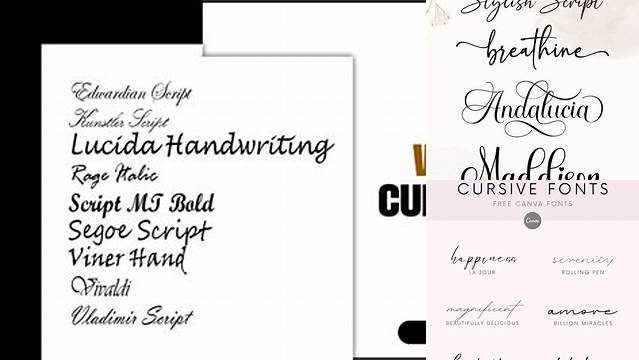
Top Cursive Fonts For Windows: Styles & Installation
Hey there, font fanatics! Ever wonder which cursive fonts would look absolutely amazing on your Windows setup? Well, you're in the right place! Finding the perfect cursive font can be a total game-changer for your documents, designs, and even just spicing up your everyday digital life. We're diving deep into the world of cursive fonts – think elegant scripts, stylish swirls, and everything in between – and how they play with your Windows system. Whether you're a creative pro or just someone who loves a good aesthetic, we've got you covered. Let's get started and discover some incredible cursive fonts that will make your Windows experience even more visually stunning.
Why Choose Cursive Fonts?
Alright, guys, let's talk about why you'd even want to use cursive fonts in the first place. Sure, you've got your trusty Times New Roman and Arial, but cursive fonts bring a whole different vibe to the table. They're all about adding a touch of personality, sophistication, and even a little bit of flair. First off, they can seriously elevate the aesthetic of your documents. Imagine a wedding invitation written in a beautiful script – it's way more personal and elegant than plain text, right? Cursive fonts can transform something ordinary into something special, whether you're designing a logo, creating a signature, or just writing a heartfelt letter. Beyond the visual appeal, using cursive fonts can also set the mood. They can evoke feelings of nostalgia, romance, or even playfulness, depending on the font you choose. Think about the classic Coca-Cola logo or the signature of a famous artist – these fonts are instantly recognizable and associated with a certain brand or personality. Plus, for some of us, using a cursive font can just be plain fun! It's like doodling with words, adding your own unique touch to everything you create. With so many styles to choose from, ranging from classic to modern, finding the perfect cursive font can be a fantastic way to express your individual style and make your work stand out from the crowd. Choosing the right cursive font is essential for making sure your message is clear and the overall design looks professional. So, whether you are creating a brand identity, designing invitations, or simply making your documents stand out, incorporating the right cursive font will help you accomplish your goals.
Elegance and Personality
One of the main reasons to choose cursive fonts is the instant touch of elegance and personality they bring. Let's face it: standard fonts are functional, but they often lack that certain je ne sais quoi. Cursive fonts, on the other hand, are all about flair and individuality. They can instantly elevate the look of your work, whether it's a simple email signature or a complex design project. Think of it like this: you wouldn't wear the same plain outfit to a formal event, would you? Similarly, using a cursive font can add a layer of sophistication and style that plain fonts just can't match. They make your work feel more handcrafted, more personal, and simply more visually appealing. This added elegance and personality make a big difference, especially when you are trying to create a memorable brand or make a great first impression. It shows that you care about the details and that you are willing to go the extra mile to make your work stand out.
Versatility in Design
Don't think that cursive fonts are just for invitations and fancy things. They're super versatile! You can use them in all sorts of design projects, from logos and branding to websites and social media graphics. The key is to find the right font for the job. Some cursive fonts are better for headings, while others work well for body text. You can even mix and match cursive fonts with other font styles to create interesting and unique combinations. For example, try pairing a bold, modern cursive font with a clean sans-serif font for a modern look, or combine a vintage cursive font with a serif font for a more classic vibe. The possibilities are endless! Plus, a well-chosen cursive font can add personality to any project. It allows you to inject your brand's personality into your designs and create a memorable visual identity. When used correctly, cursive fonts can create a perfect balance between elegance and readability, making your designs look professional and eye-catching. So don’t limit yourself to traditional uses. Get creative and experiment with different styles to find the perfect fit for your project.
Top Cursive Fonts for Windows
Okay, let's get to the good stuff: the best cursive fonts that play nicely with Windows. We've rounded up some of our favorites, considering both aesthetics and readability. Remember, the best font is the one that fits your project, so experiment and see what you like!
1. Great Vibes
Great Vibes is a fantastic choice if you are looking for something elegant, flowing, and easy to read. This font has a beautiful, classical style, and its delicate curves and connected letters make it perfect for invitations, quotes, and any design that needs a touch of sophistication. It is perfect for creating a feeling of elegance. It is also surprisingly readable, even at smaller sizes, making it versatile for different uses. Great Vibes is great for special occasions or whenever you want to bring a touch of class to your work. Its smooth lines and elegant curves capture a sense of luxury. This font's popularity is well-deserved, and it's definitely a must-try for any cursive font lover. Because it is simple and stylish, it is not only a font, but a way to make your projects stand out and have a lasting impact.
2. Dancing Script
Dancing Script is an excellent choice for anyone looking for a more casual, playful vibe. This font has a bouncy, energetic style that makes it perfect for greeting cards, social media posts, and any project where you want to add a touch of fun and friendliness. The letters appear to dance across the page, creating a lighthearted and approachable feel. Its informal style makes it a great choice for projects that need a more casual atmosphere. Dancing Script is perfect for projects that require a touch of whimsy. This versatile font is ideal for creative designs and personal projects. The fluidity of the font makes it easy to read, and the friendly design creates a good atmosphere. So whether you want to create a greeting card or add a touch of personality to your social media content, Dancing Script is an excellent choice. Its playful appearance makes it perfect for creative projects.
3. Brush Script MT
Brush Script MT is your go-to font if you want something that looks like it was made with a real brush. It has a slightly rough and imperfect look, giving it a more natural and handcrafted feel. This is a great option if you're going for a vintage or artistic style. It has a unique and charming look, making it an excellent choice for logos, headers, and other design elements that need to stand out. This font is great for designers looking for a touch of authenticity. This is ideal for designers looking to create a retro or handmade design. It brings a sense of authenticity to your designs. This bold and expressive font can add a special touch to your design. It can be perfect for your next artistic project. Its distinctive appearance captures attention and makes it a great choice for creative designs.
4. Pacifico
Pacifico is inspired by the surf culture of the 1950s. This font has a flowing, friendly style that's perfect for adding a touch of retro charm to your work. This font is great for those looking for a vintage or nostalgic aesthetic. It works great for websites, logos, and other projects that want to give off a cool, relaxed vibe. This font is also perfect for social media posts or any design that needs a touch of nostalgia. This font’s rounded letters and fluid strokes make it a great option for all types of creative projects. The unique character of this font will definitely grab your readers' attention. If you want to evoke feelings of relaxation and nostalgia, Pacifico is an excellent choice. Its retro appeal and its great versatility are some of the main features.
5. Lobster
Lobster is a bold, eye-catching font that's perfect for headlines and titles. This font has a vintage, retro feel with a slightly condensed design, making it perfect for grabbing attention. This font is great for adding a retro touch to your work. It's perfect for posters, website headers, and any project where you want to make a strong visual statement. This is a beautiful font with an appealing look. The curves and the shape of this font make it ideal to be used in the headings and titles of any project. The design of this font makes it a perfect choice for headlines, posters, and any project where you need to stand out. So, if you want a font that's bold and impossible to ignore, Lobster is the way to go!